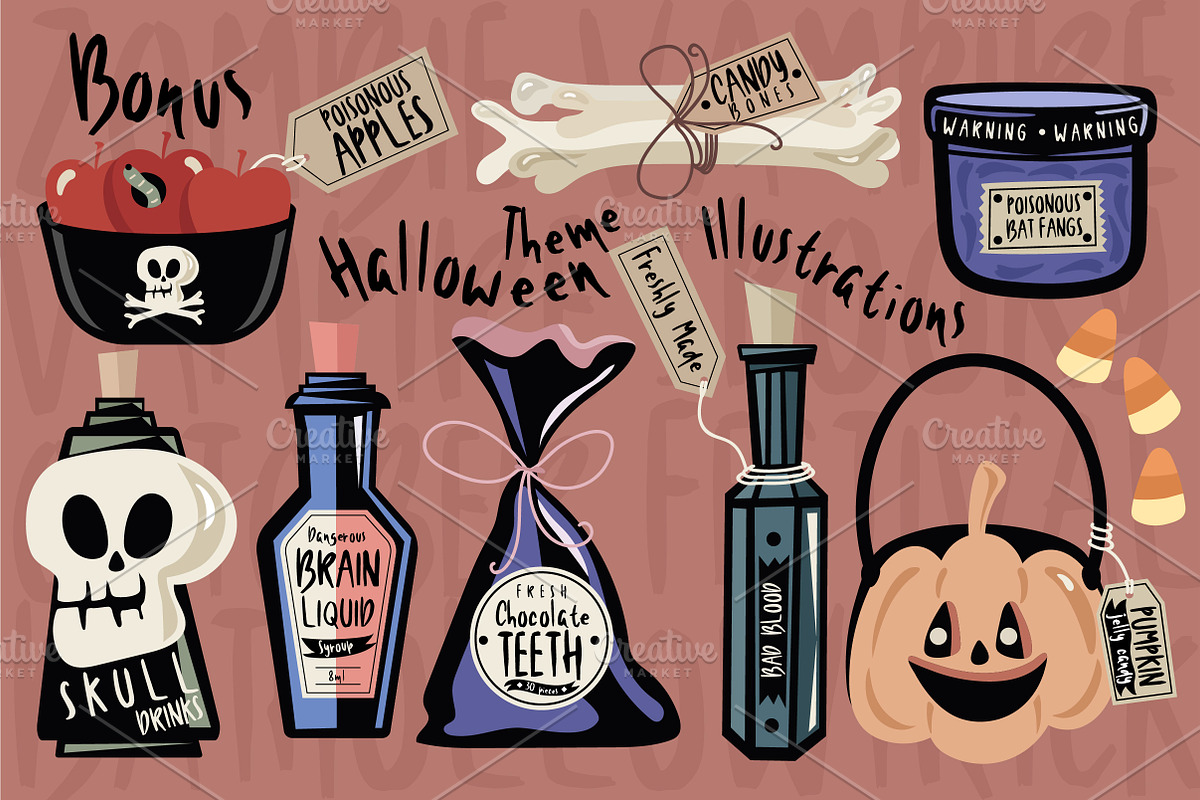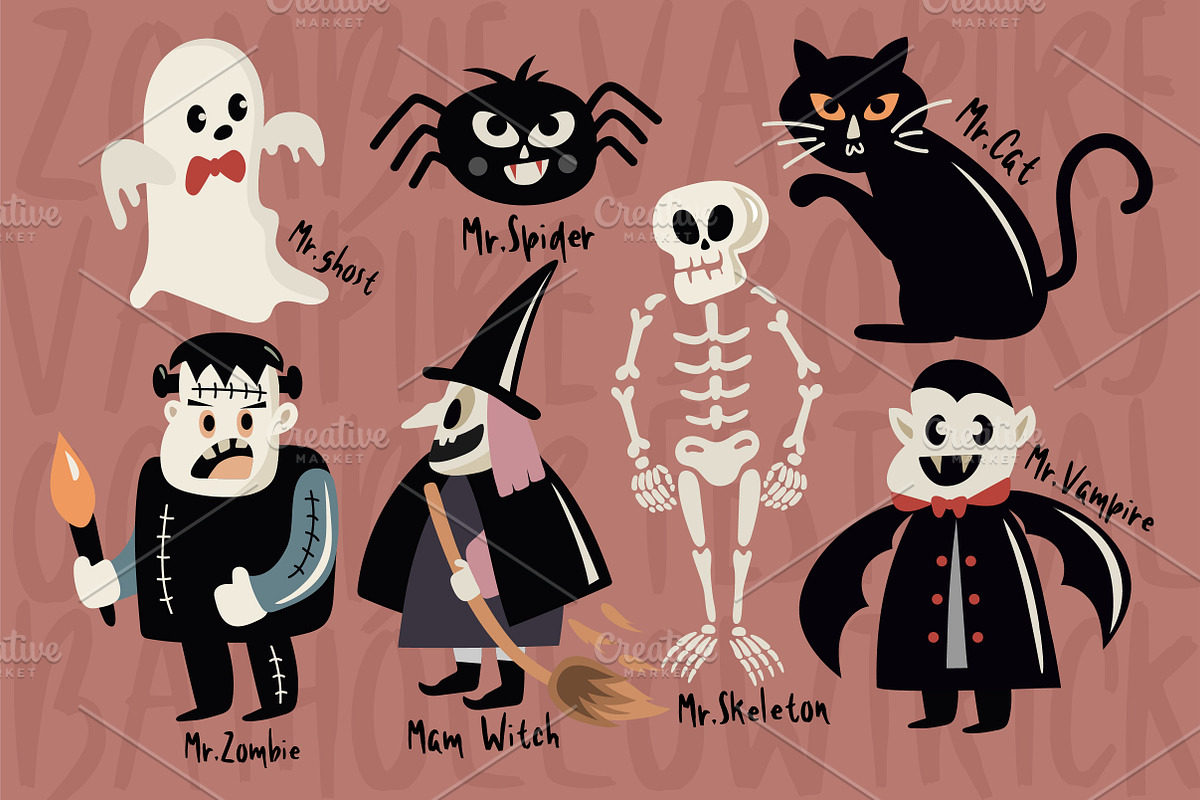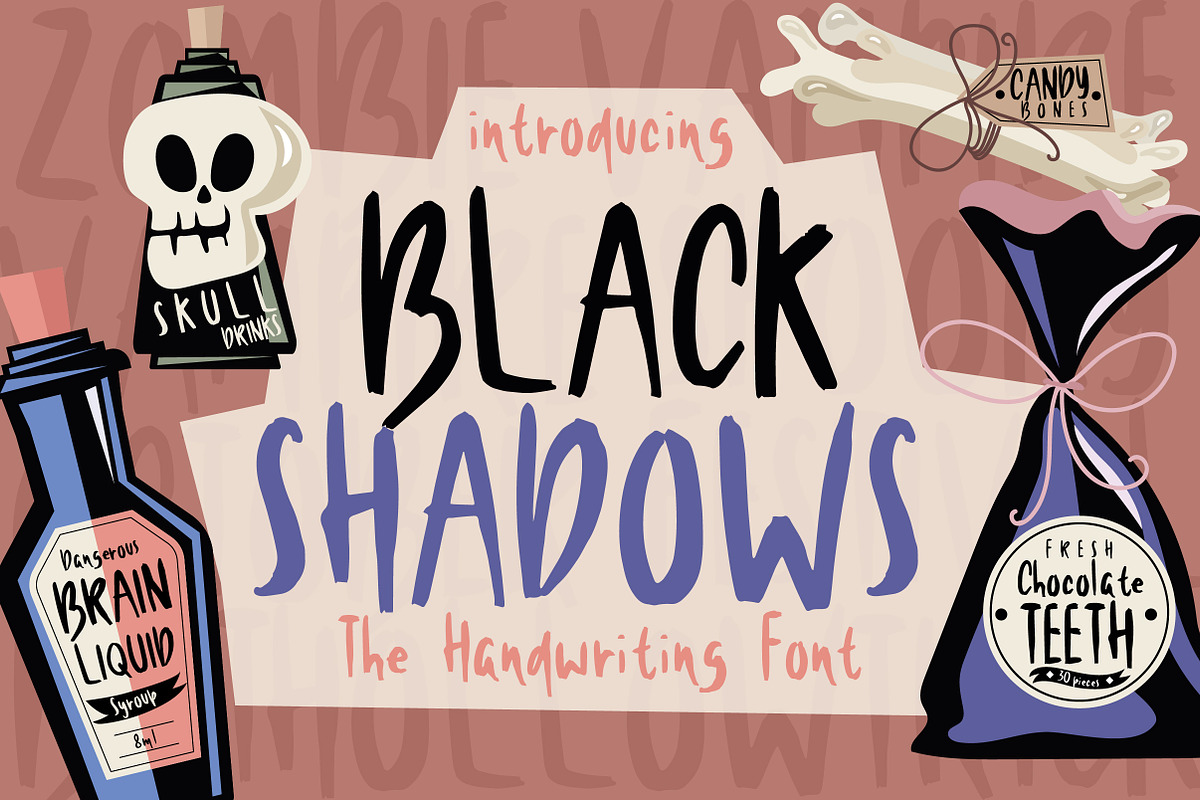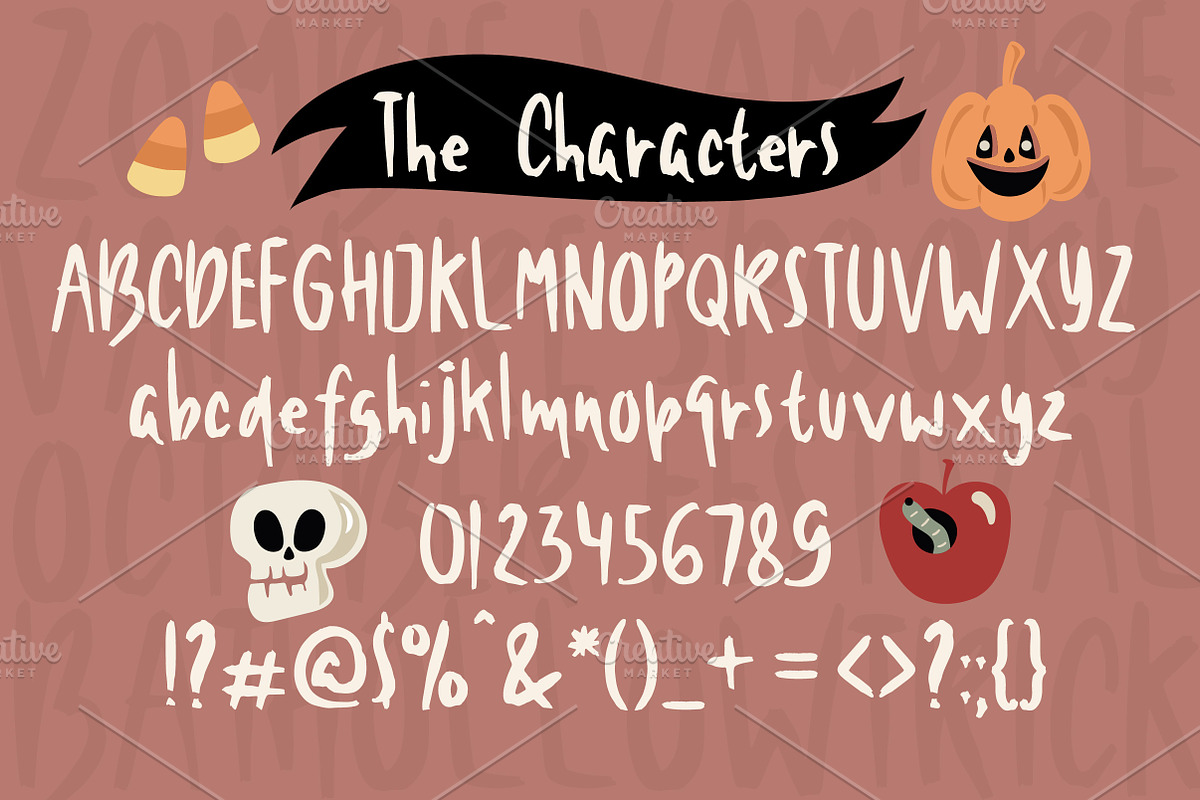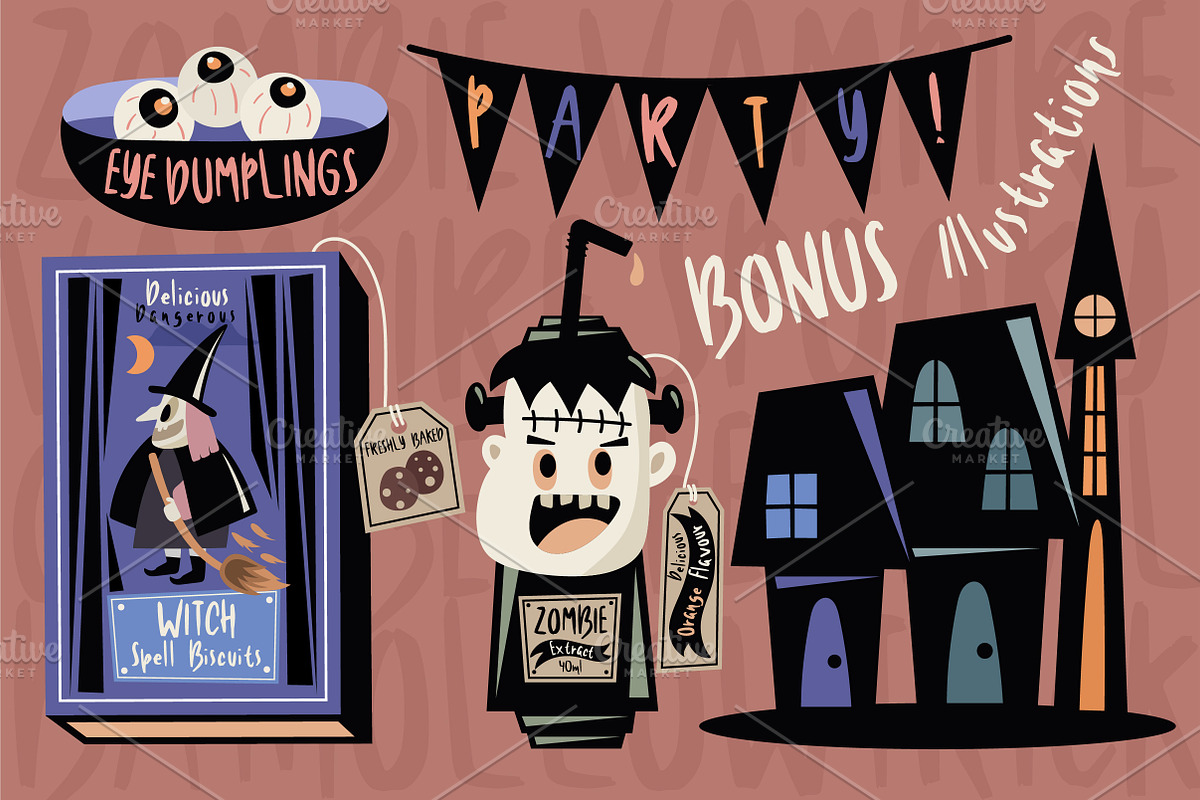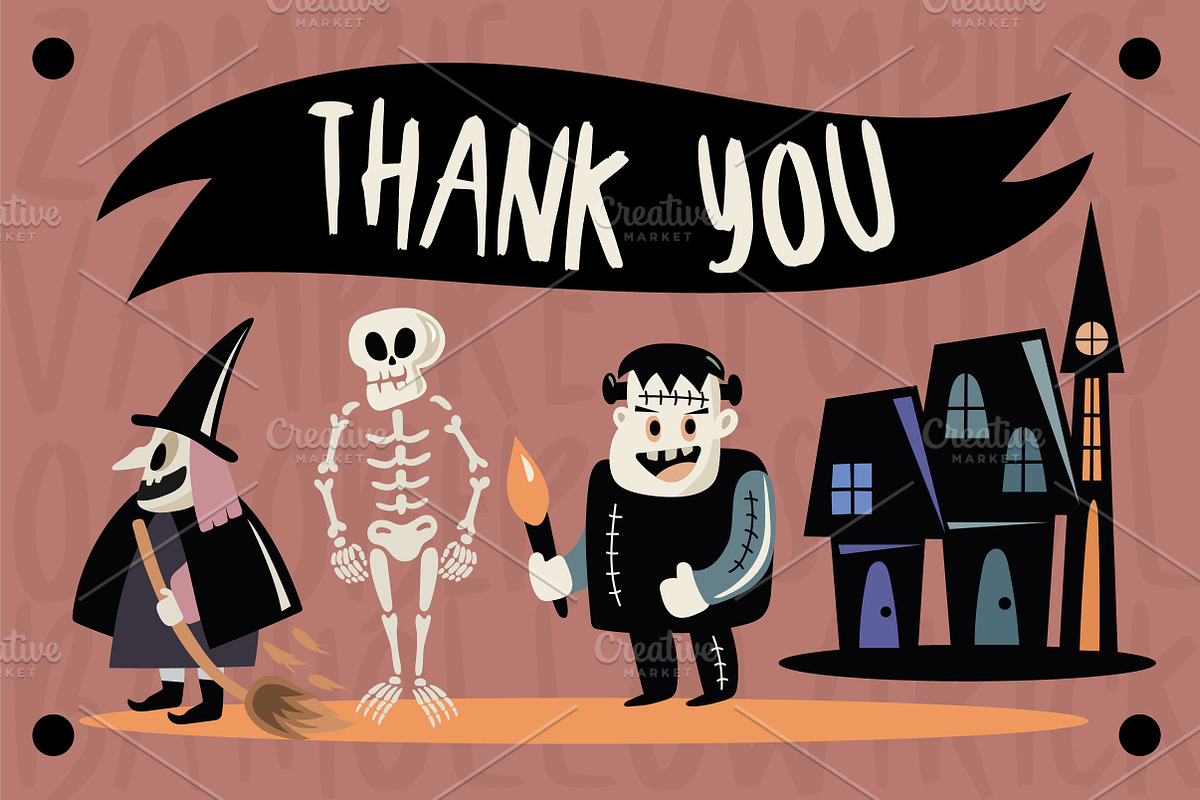
Black Shadows Font
Hi All! This is Black Shadows a handwriting font suitable for horror/fun theme purpose, especially halloween! You will also get 22++ halloween illustration as bonus!
Black Shadows Font by caocastudio fits naturally into Branding, posters, packaging, typography.